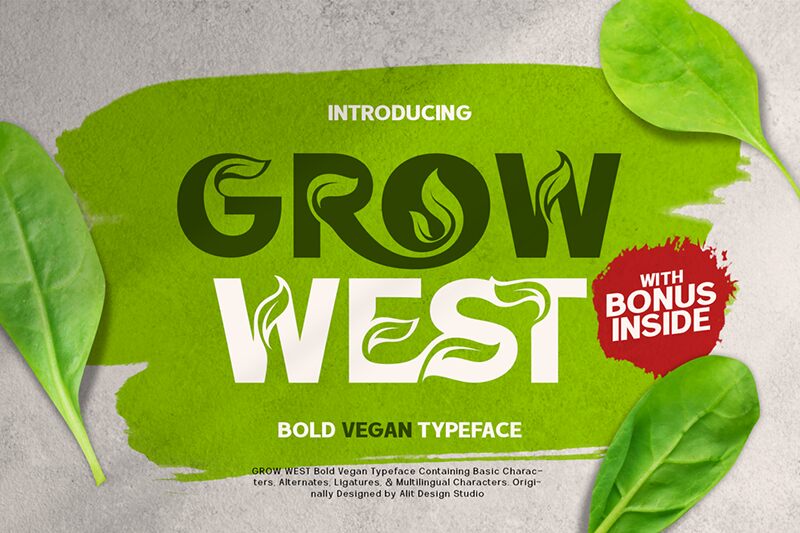
Grow West Regular
Grow West font by Alit Design is a bold display typeface with decorative and thematic elements. Natural components are present in the font which although modern, brings forth pleasant and organic thoughts. No soft curves or rounded edges appear within this font; only straight angles and attention-commanding shapes.
A free display font like this one can find use in various industries. Logos, posters, album covers, titles for books and movies all make good candidates. Grow West is designed with your website banners, store signage, magazine covers or skateboards as well where it’s bound to make every design steal more than a glance!